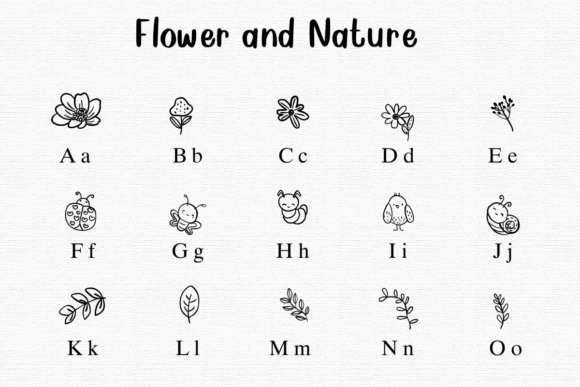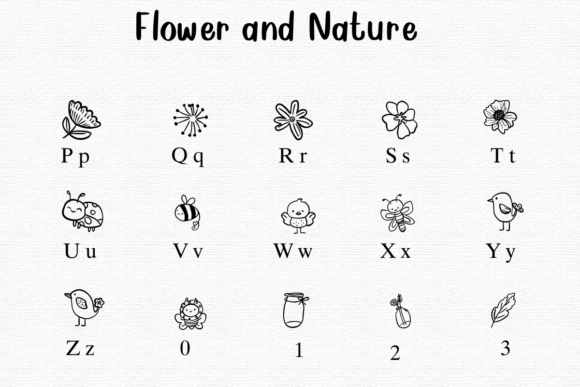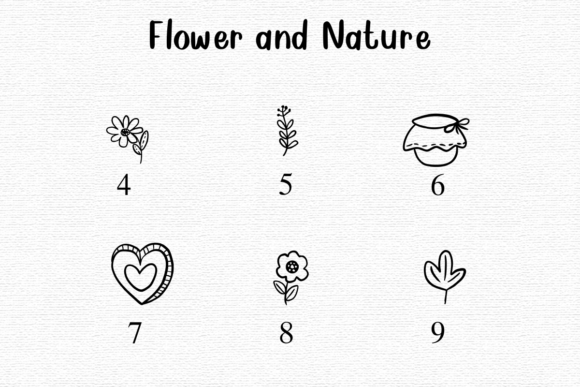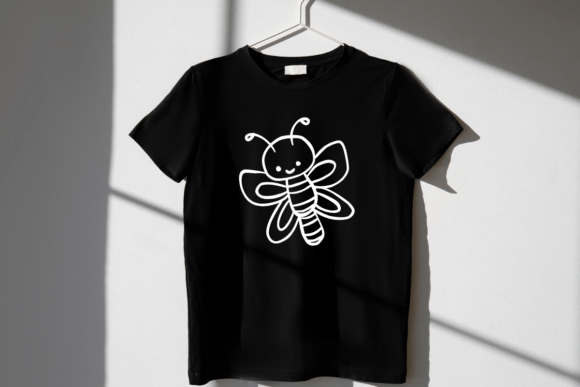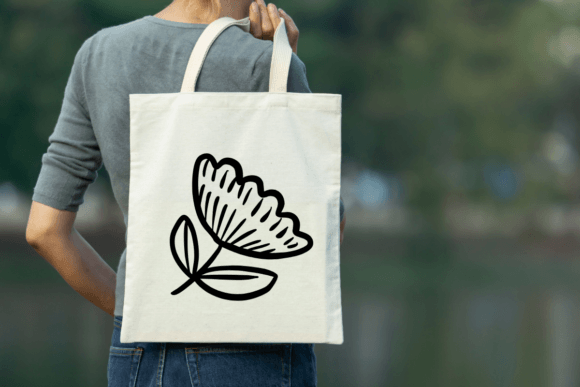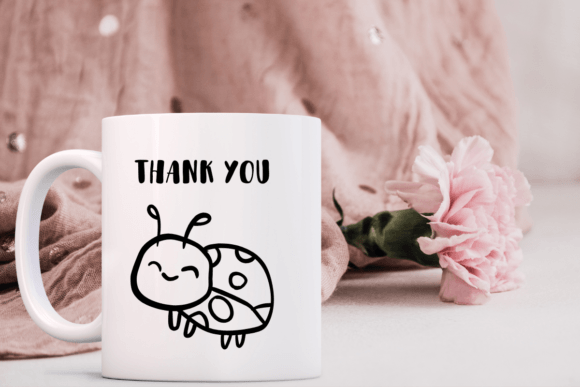
Bring the Outdoors In with the Flower and Nature Font
There’s something magical about sitting in a garden on a warm summer day, surrounded by the sweet scent of blooming flowers and the gentle hum of bees as they flit from petal to petal. It’s moments like these that inspire creativity and spark new ideas. For designers, the desire to capture that essence and bring it into their work is a constant source of inspiration.
Enter the Flower and Nature Font, a charming dingbat font featuring delightful designs of flowers, bees, and butterflies. This versatile font is perfect for adding a touch of nature to your projects, from invitations and greeting cards to crafts and more. With its variety of decorative elements, the Flower and Nature Font is a valuable tool for designers looking to add a personal touch to their work.
Key Features of “Flower and Nature Font”
- Unique Characteristics: Hand-drawn design with intricate floral patterns and organic shapes, perfect for nature-inspired and whimsical designs
- Kerning and Ligatures: Includes advanced kerning and ligature pairs for smooth and professional typography
Flower and Nature Font Review
Overall, I think the Flower and Nature Font is a charming and whimsical typeface that can add a touch of elegance to various designs. ✨ The intricate details and natural themes make it perfect for projects that require a soft, earthy feel.
- ✨ Beautiful, hand-drawn details that give the font a unique character.
- ✨ Suitable for a wide range of applications, from packaging to branding and beyond.
- ✨ Can be easily customized to fit various design styles and color schemes.
However, there are a few limitations that I think are worth noting:
- ⚠️ May not be the best choice for projects that require a more modern or sleek aesthetic.
- ⚠️ Some characters may appear slightly irregular or inconsistent in certain font sizes.
- ⚠️ May not be suitable for use in extremely small font sizes, where details can get lost.
Overall, I think the Flower and Nature Font is a lovely addition to any designer’s toolkit. While it may have some limitations, its unique charm and versatility make it a great choice for the right project.
To get the most out of the Flower and Nature Font, consider the following tips:
- Use the font in combination with natural and earthy design elements, such as leaves and flowers.
- Use the font in a variety of contexts, such as in headings, subheadings, and body text.